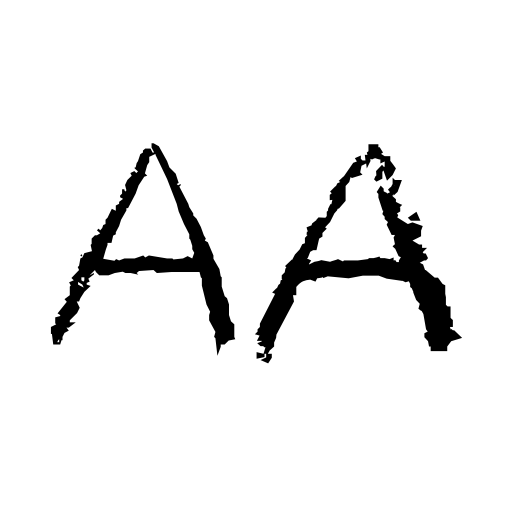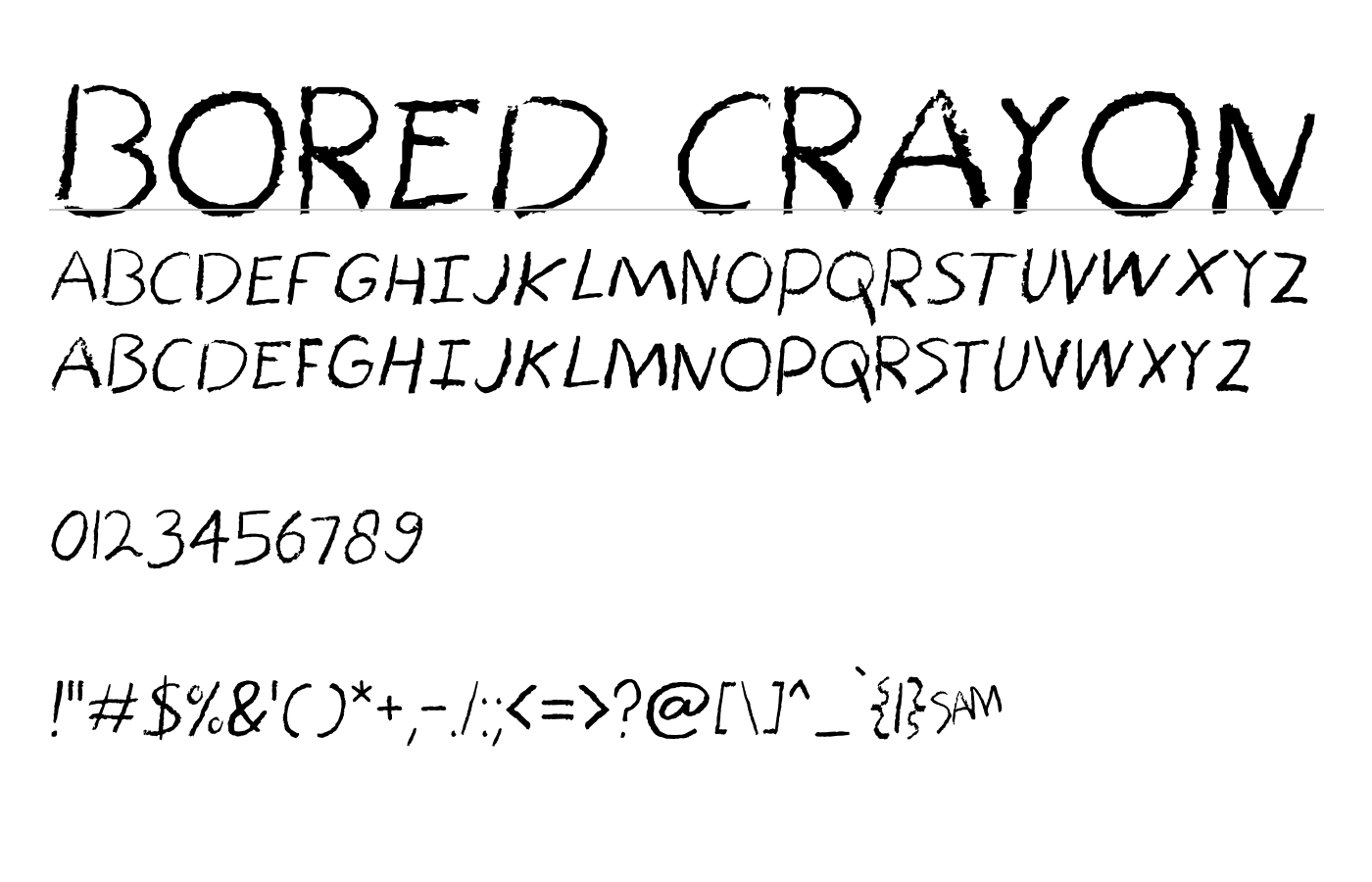
Bored Crayon is a playful, hand-drawn sans serif font that mimics the uneven texture of crayon writing, giving it a casual and artistic feel. Its irregular strokes and light weight make it perfect for creative projects, children's designs, or informal branding where a fun, personal touch is desired. This font works well in headlines, logos, and invitations, adding a quirky, approachable character to any design.
Bored Crayon Font
About Bored Crayon Font
| Font family | Bored Crayon Font |
| Designer | Sam Kerkhoff |